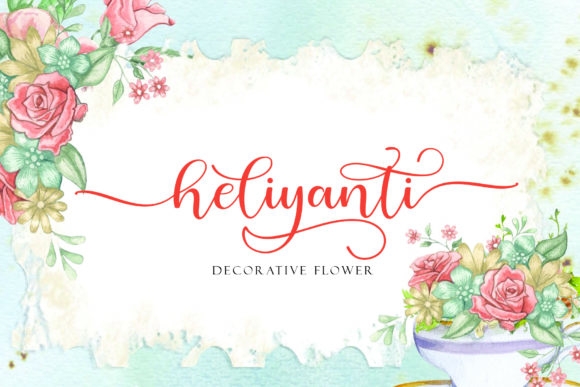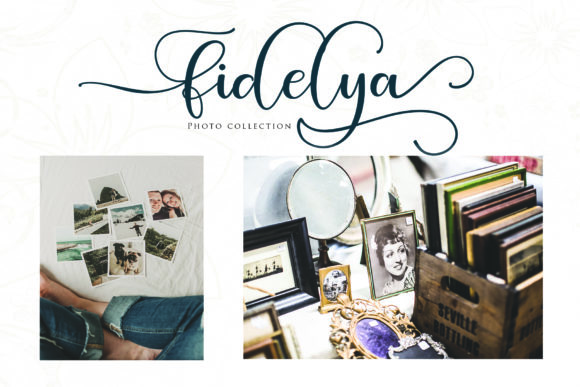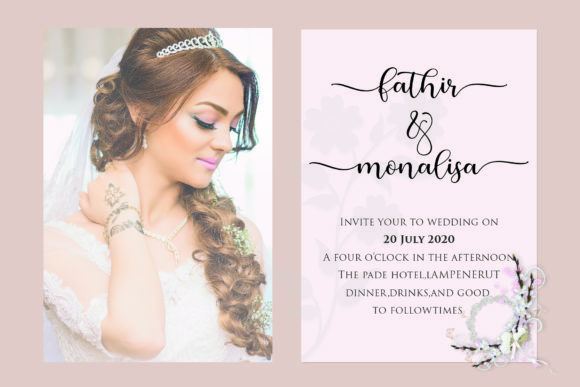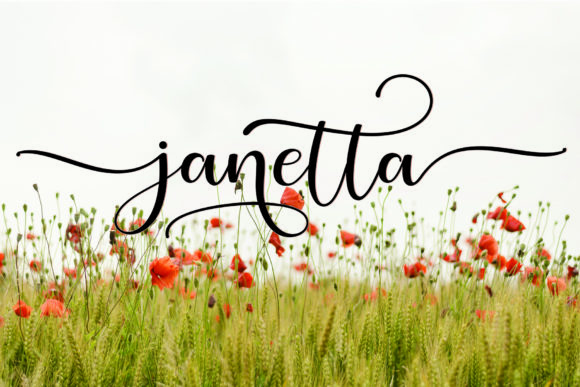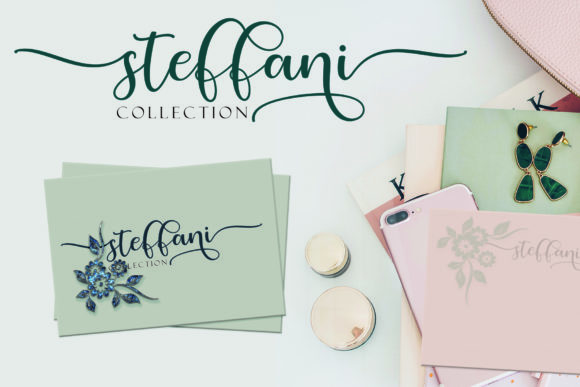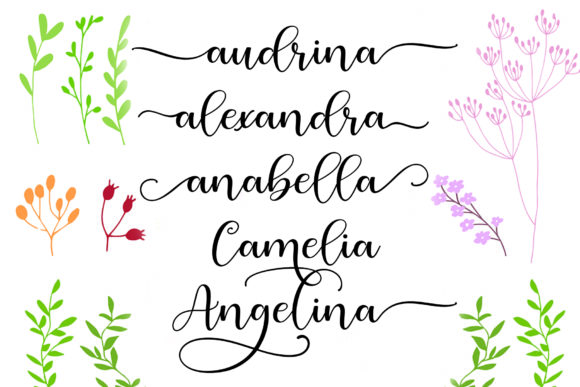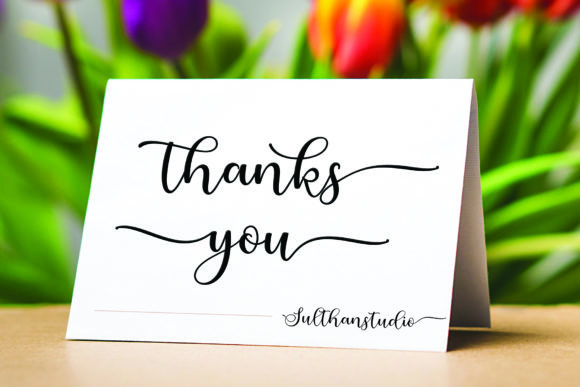
Berliyan Script Font
About Berliyan Script Font
Berliyan is a sweet and simple script that will turn any design idea into a true piece of art. Get inspired by its unique style!